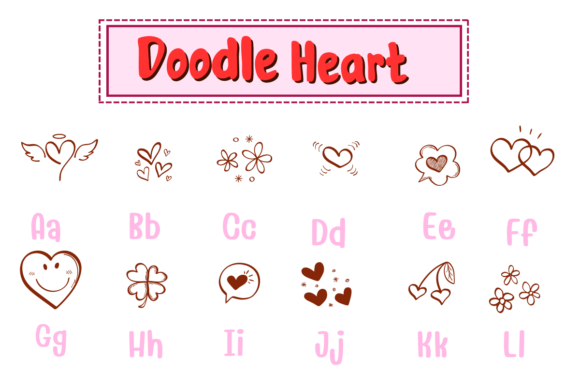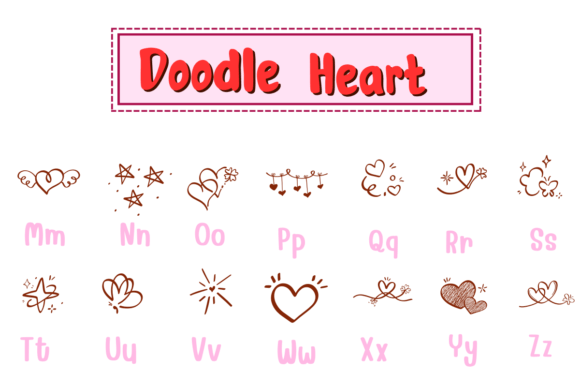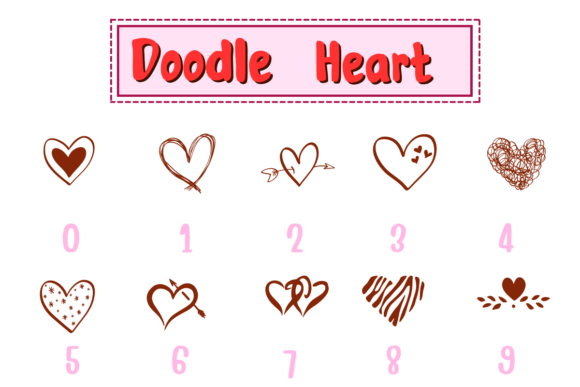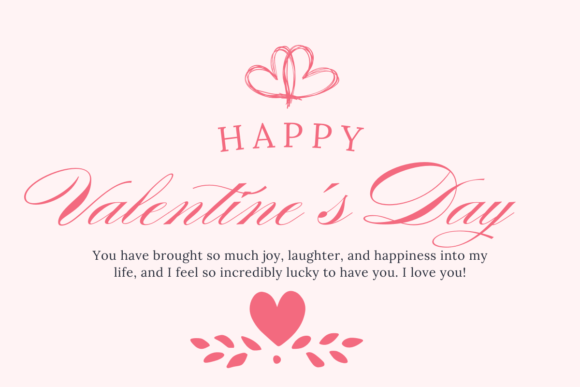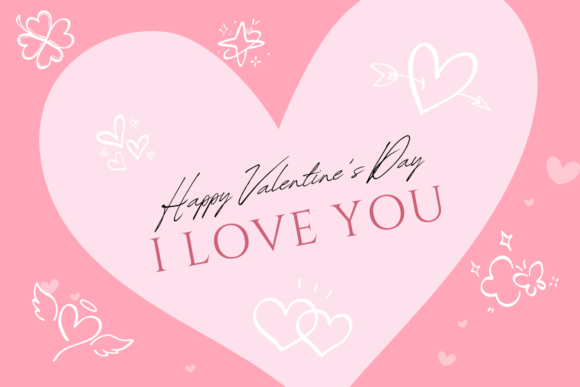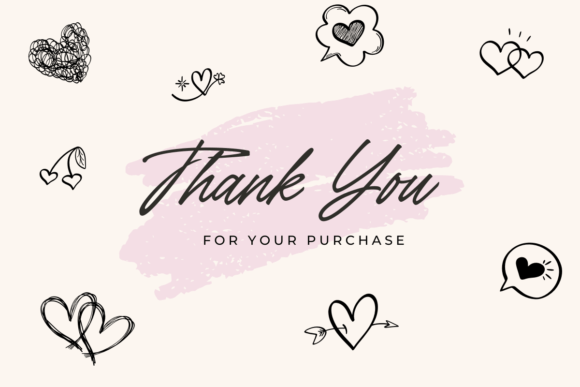
Doodle Heart Font: Add a Touch of Sweetness to Your Designs
Are you looking for a fun and creative way to add love and charm to your designs? Look no further than the Doodle Heart Font! This adorable font is full of heart-shaped symbols, making it perfect for creating Valentine’s Day cards, romantic messages, or any project that needs a touch of sweetness.
What is Doodle Heart Font?
The Doodle Heart Font is a unique and playful font that replaces each letter with a cute heart doodle. This font is ideal for designers and crafters who want to add a personal touch to their work. Whether you’re creating a romantic message, a Valentine’s Day card, or a social media post, the Doodle Heart Font is sure to make your design stand out.
Features of Doodle Heart Font
- Heart-Shaped Symbols: Each letter is replaced with a cute heart doodle, making it perfect for adding love and charm to your designs.
- Perfect for Valentine’s Day: The Doodle Heart Font is ideal for creating Valentine’s Day cards, romantic messages, or any project that needs a touch of sweetness.
- Customizable: You can use the Doodle Heart Font in a variety of designs, from digital projects to print materials.
Uses of Doodle Heart Font
The Doodle Heart Font is versatile and can be used in a variety of projects, including:
- Valentine’s Day Cards: Create romantic and personalized Valentine’s Day cards for your loved ones.
- Romantic Messages: Add a touch of sweetness to your romantic messages, whether it’s a social media post or a text message.
- Social Media Posts: Use the Doodle Heart Font to create eye-catching social media posts that are sure to grab attention.
- Digital Projects: Use the font in digital projects, such as e-cards, invitations, or digital art.
- Print Materials: Use the font in print materials, such as flyers, brochures, or posters.
Tips for Using Doodle Heart Font
Here are some tips for using the Doodle Heart Font:
- Use it Sparingly: Use the font sparingly to add emphasis to your design. You can use it for headings, titles, or special messages.
- Mix and Match: Mix and match the Doodle Heart Font with other fonts to create a unique and visually appealing design.
- Experiment with Colors: Experiment with different colors to find the perfect combination that matches your design.
- Have Fun: Most importantly, have fun with the font! The Doodle Heart Font is a playful and creative way to add love and charm to your designs.
The Doodle Heart Font is a fun and creative way to add love and charm to your designs. With its heart-shaped symbols and playful style, it’s perfect for creating Valentine’s Day cards, romantic messages, or any project that needs a touch of sweetness. Whether you’re a designer or crafter, the Doodle Heart Font is sure to inspire you to create something special.